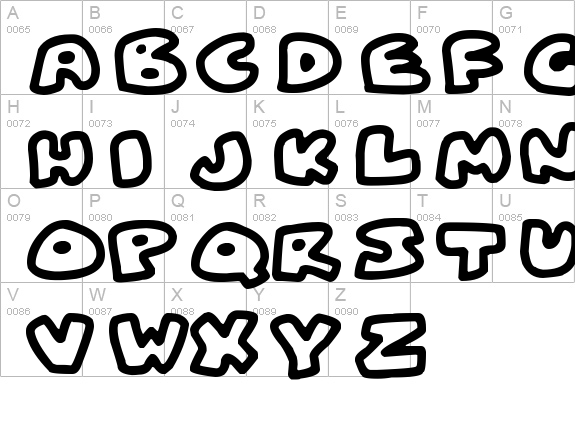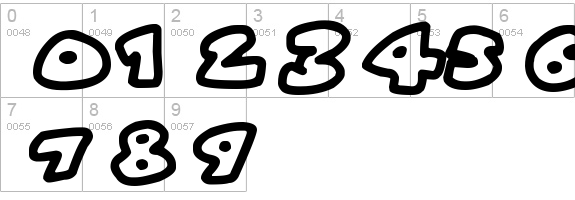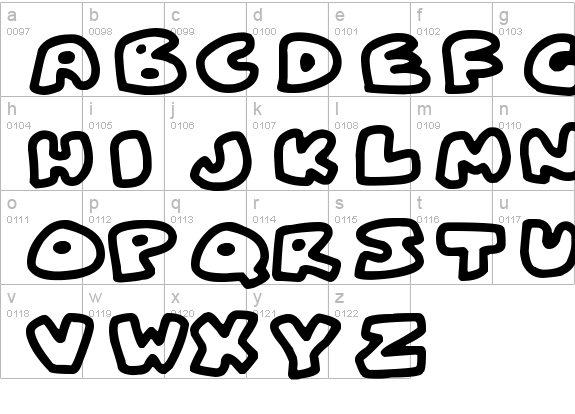
Fat Wobble font is a playful and quirky display font that exudes a sense of fun and whimsy. Its chubby letterforms give off a friendly and approachable vibe, making it perfect for designs that aim to convey a light-hearted and cheerful message. This font is ideal for various creative projects such as branding, posters, greeting cards, and more.